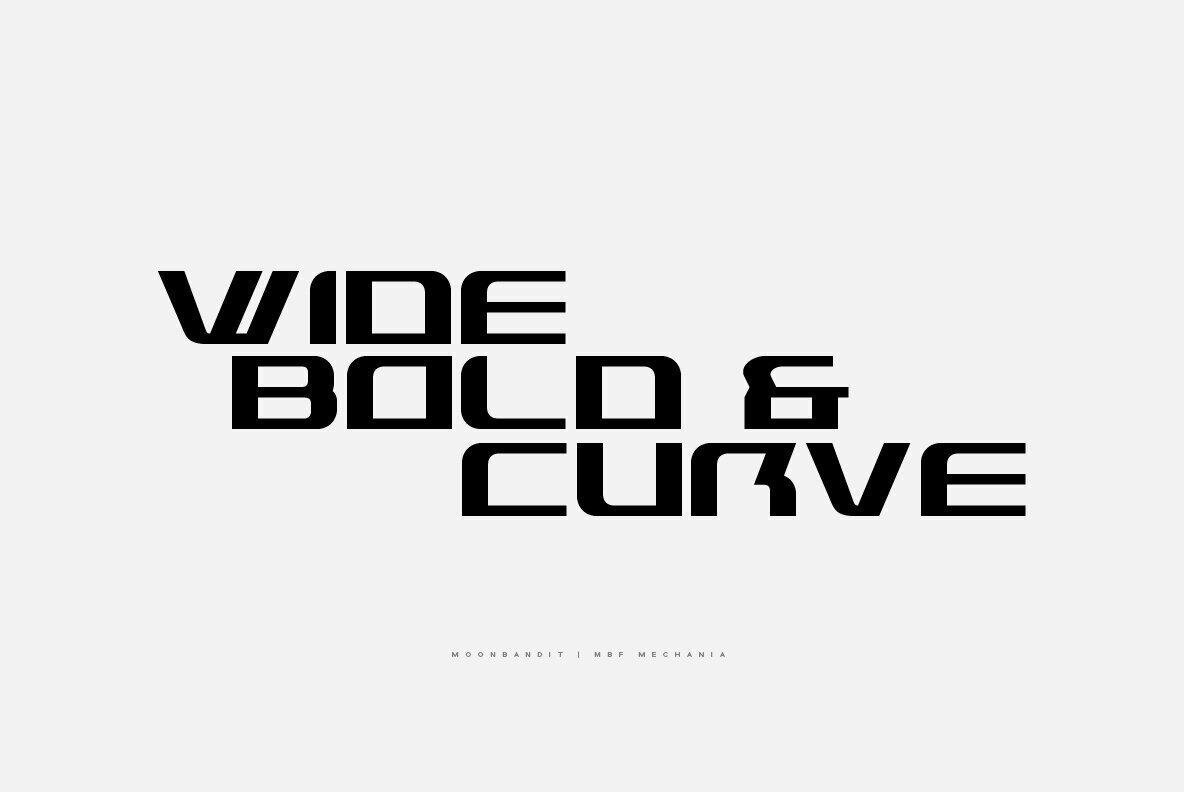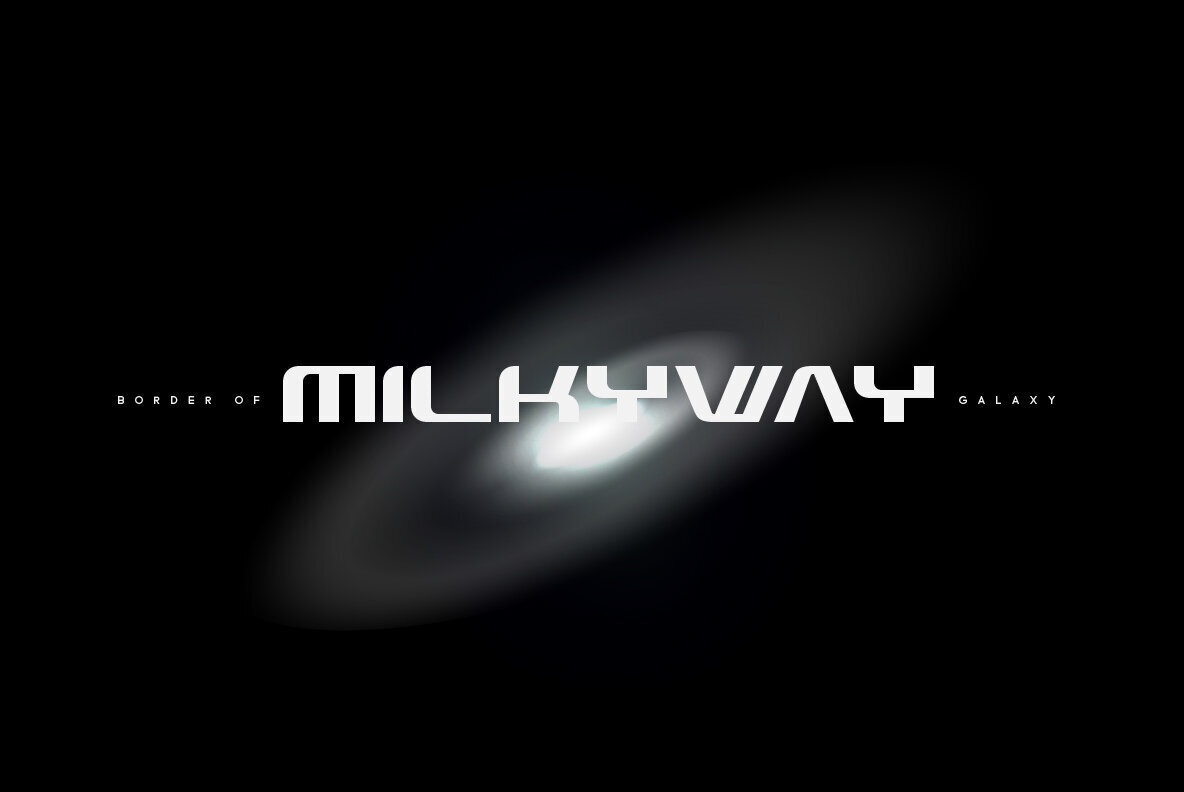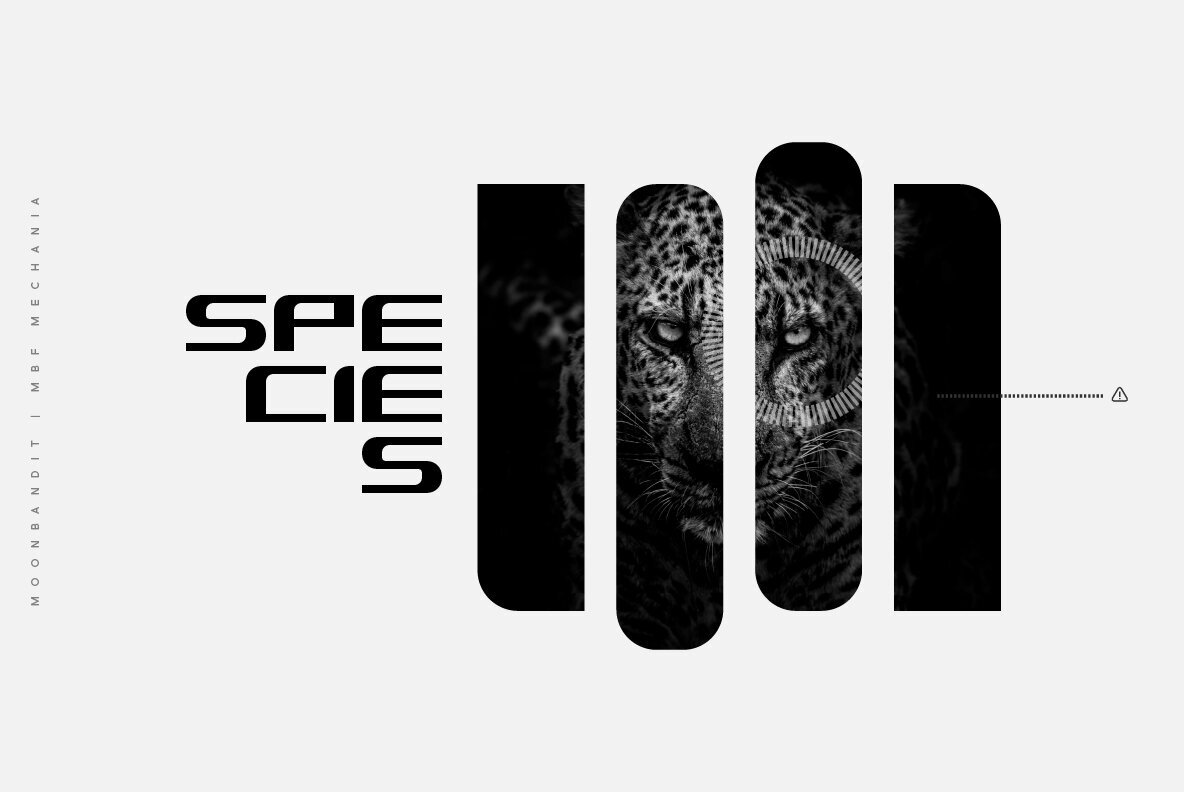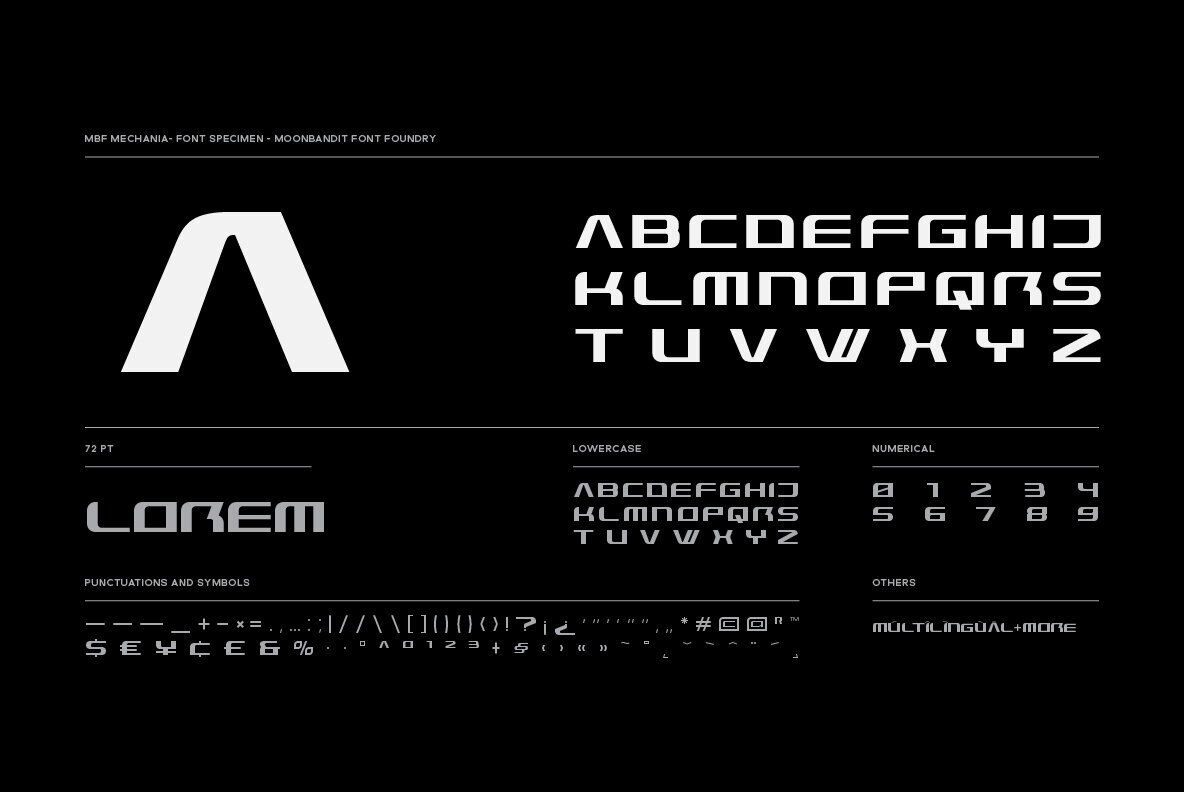
MBF Mechania Font
MBF Mechania
Mechania is a geometric sans serif display font. Bold and wide design gives this typeface a strong presence. Balance in the round and sharp edge to keep the clarity. Best use for a modern minimalist theme, other usage includes logo, poster, display, headline, t-shirt design and many more.